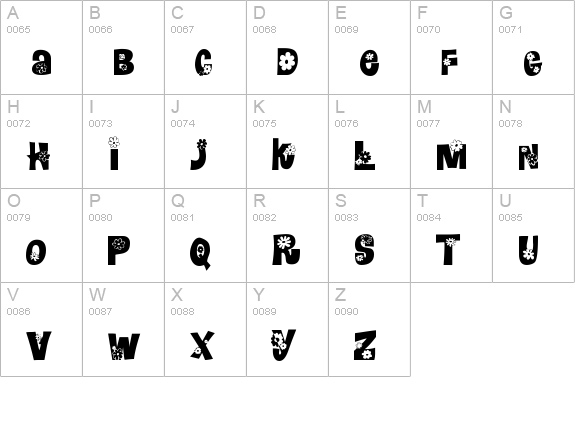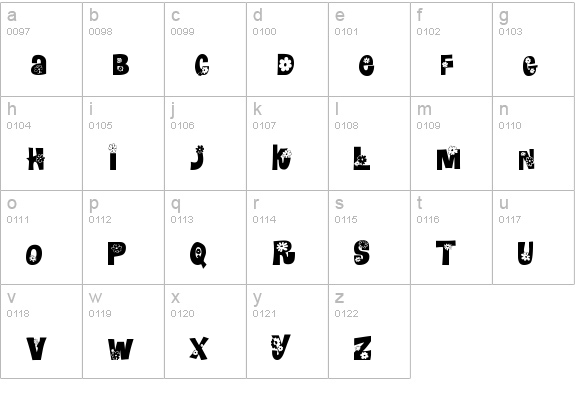
HippieDisplay Font Details
HippieDisplay font is a groovy and far-out typeface that exudes a carefree and laid-back vibe reminiscent of the 1960s counterculture movement. With its whimsical and hand-drawn style, this font is perfect for adding a touch of retro charm to your designs. Its quirky and playful appearance makes it ideal for projects that call for a touch of nostalgia and individuality. Best of all, HippieDisplay font is available for free download at FontsMarket.com. So go ahead and unleash your creativity with this funky and free-spirited typeface that is sure to make your designs stand out from the crowd. Let your imagination run wild with HippieDisplay font and transport your audience to a world of peace, love, and good vibes.